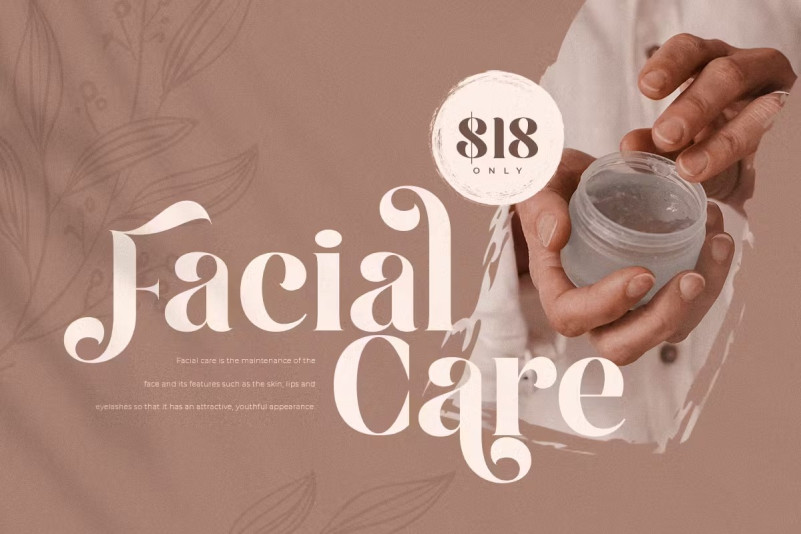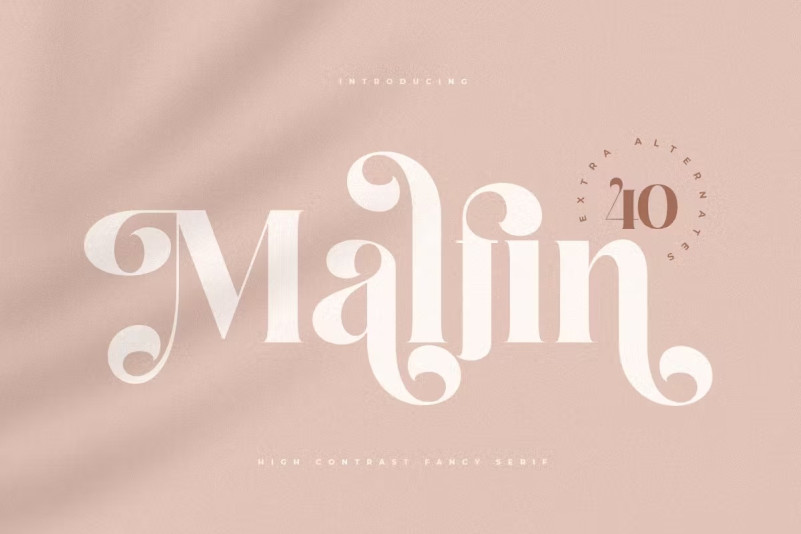
Malfin Font
Malfin Font – A luxury Cursive Serif font, specially designed to display the display or headline with love and elegance, will be ready to add value to your brand. It’s so nice to work with a designer or product owner who needs solutions to make their design more sleek and modern. And especially for the Malfin font, we prepared all the typefaces to help you create unlimited variations for your creative needs.